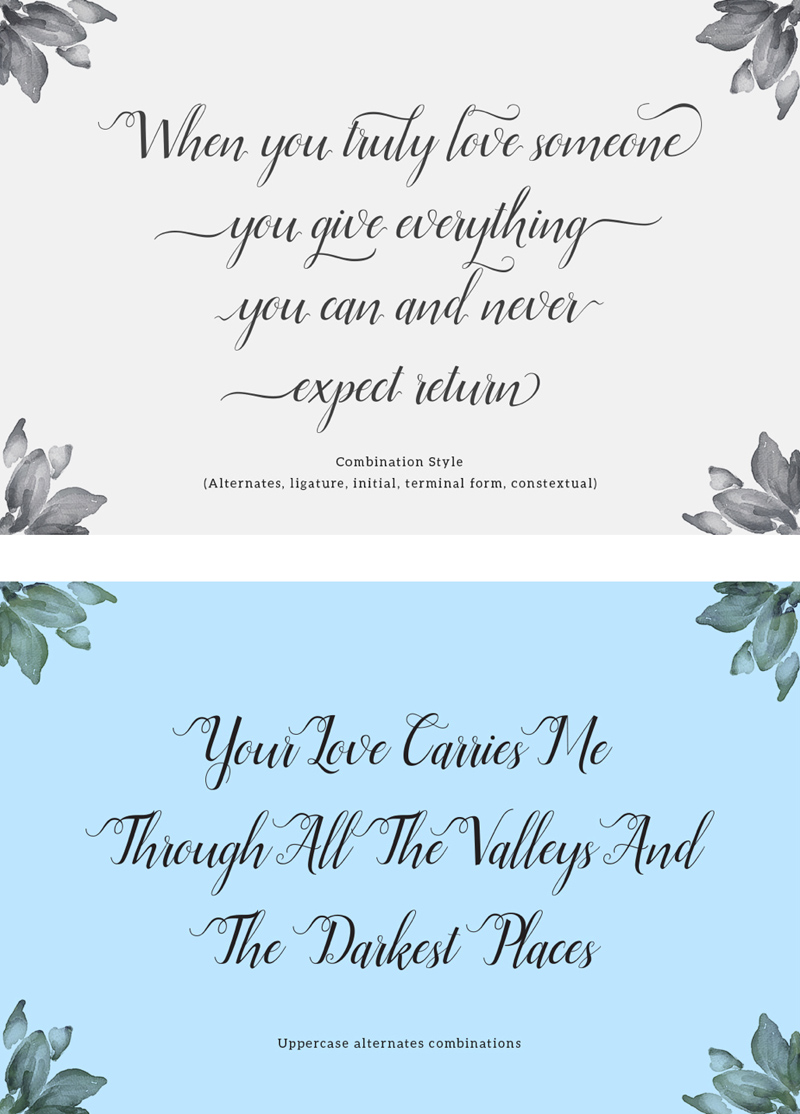
Ellizabeth Script Free Font
Elizabeth is a script typeface beautiful calligraphy and modern with inreguler baseline. This font is suitable for a wide range of products each project, such as wedding invitations, greeting cards, correspondence, and various other purposes and…